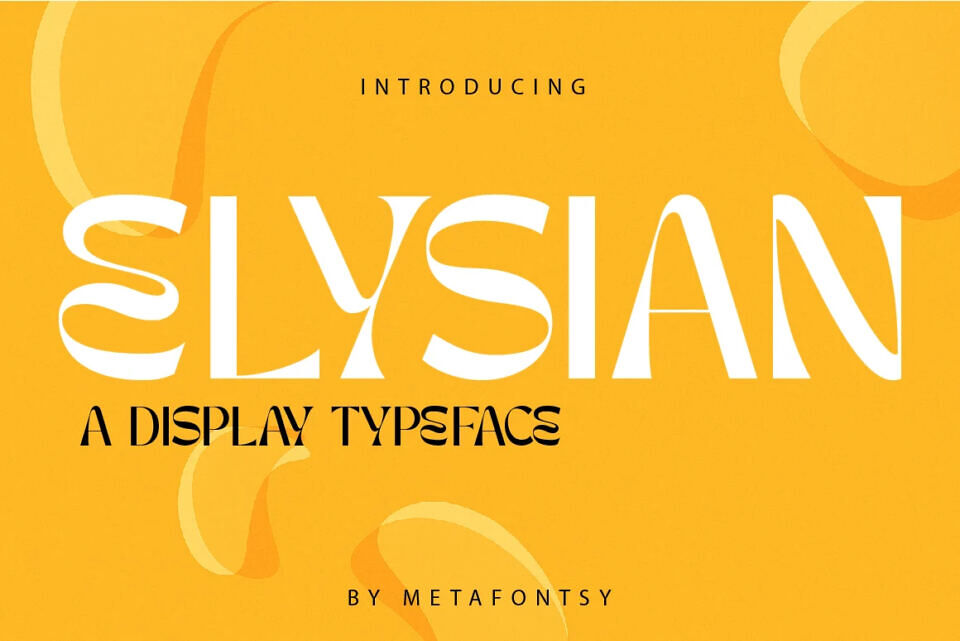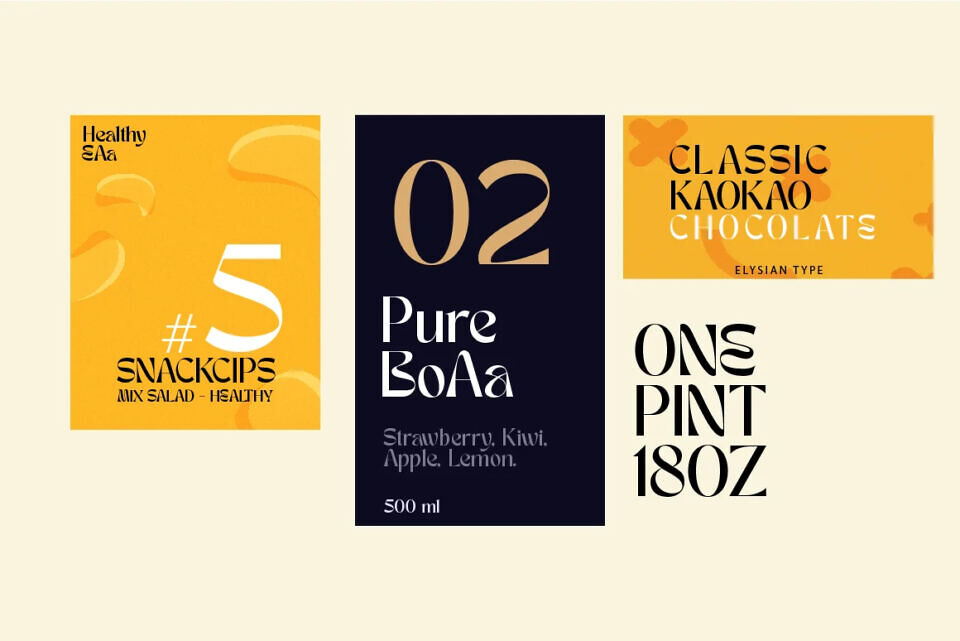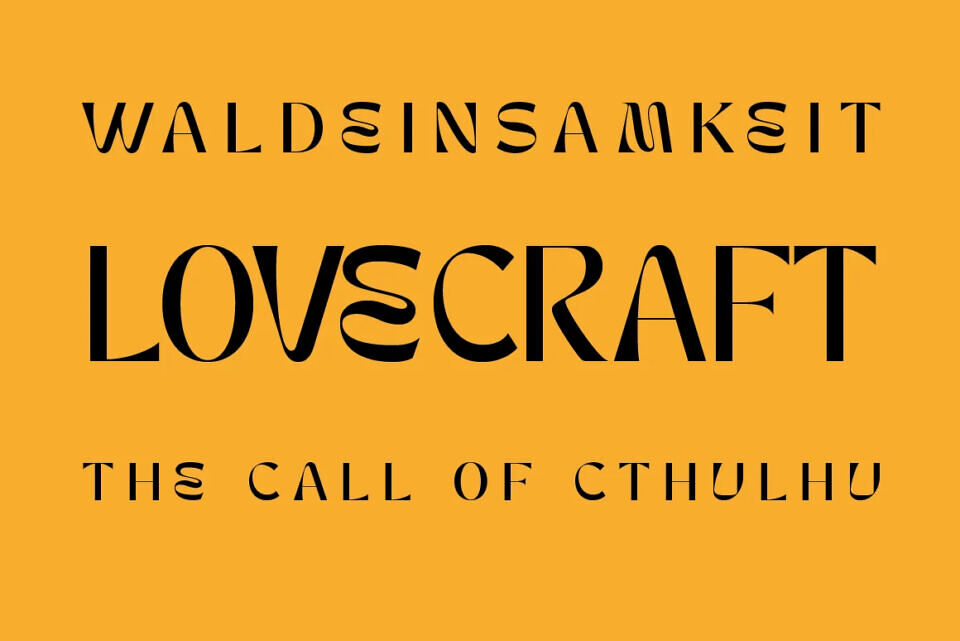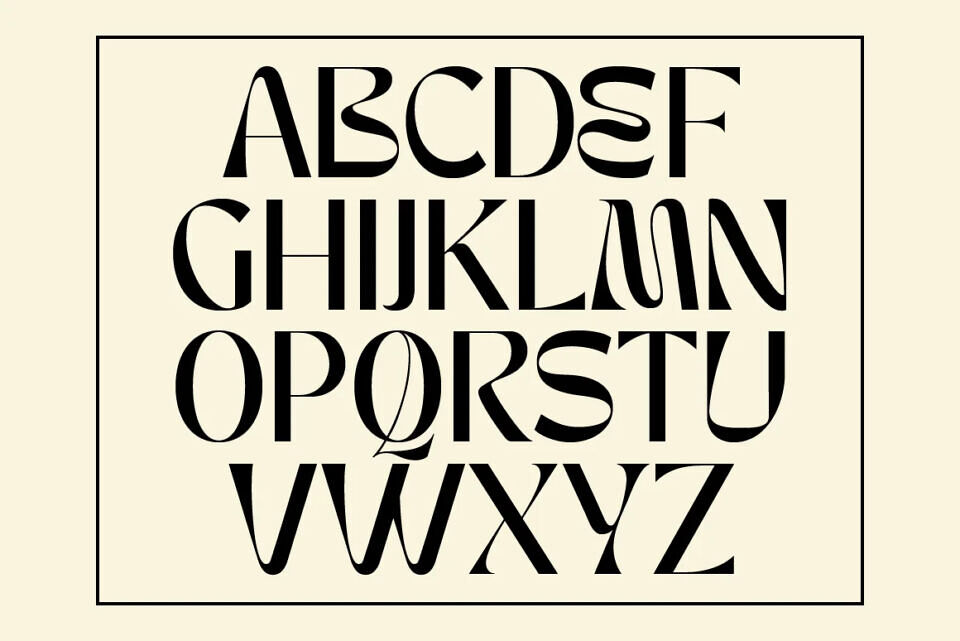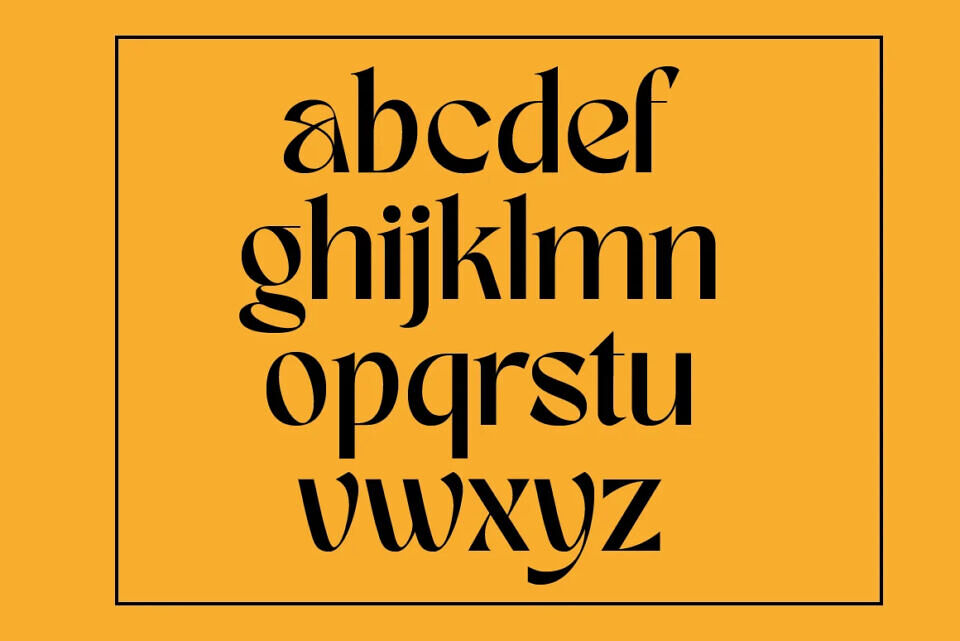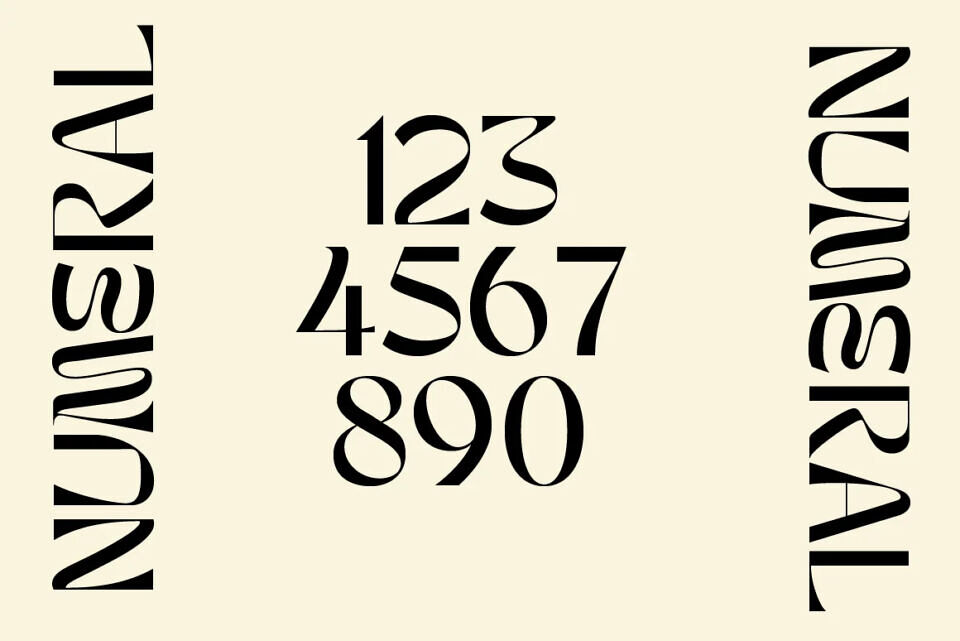
Elysian Font
Elysian is an elegant serif display font boasting a vintage-refined aesthetic, enriched with numerous alternates, ligatures and multilingual support. It features textured surfaces and embellished terminals to preserve character in both large and small sizes. Ideal for branding, packaging, editorial or logo design, Elysian delivers classic sophistication with flexible expressiveness.